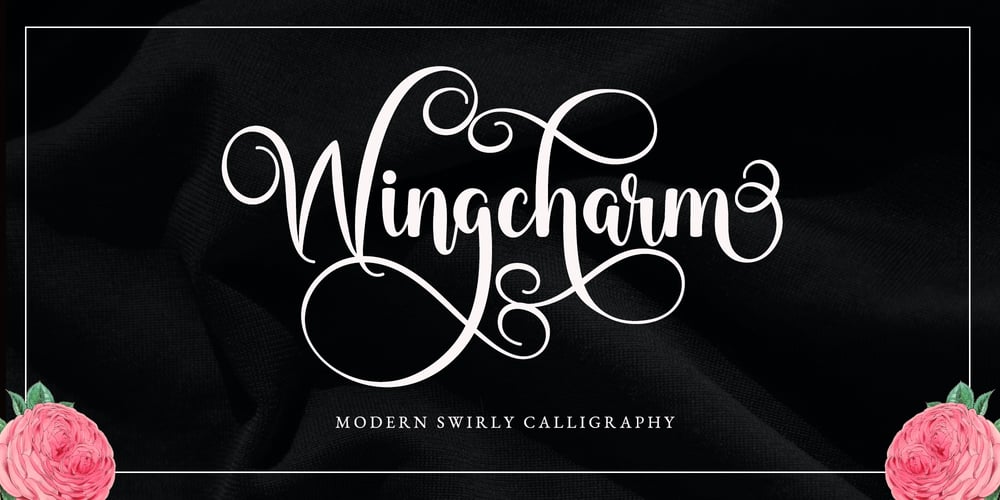
Wingcharm Font Family was designed by Ainur Rofiq and published by Airotype. Wingcharm contains 1 styles and family package options. Wingcharm is beautiful modern script with elegant touch. It has lots of swirl extra glyphs to give options in designing.Wingcharm swirly font is perfect font for any projects, such as wedding invitation, christmas design, branding, logo, lettering, crafting, sticker, sublimation, and many more.